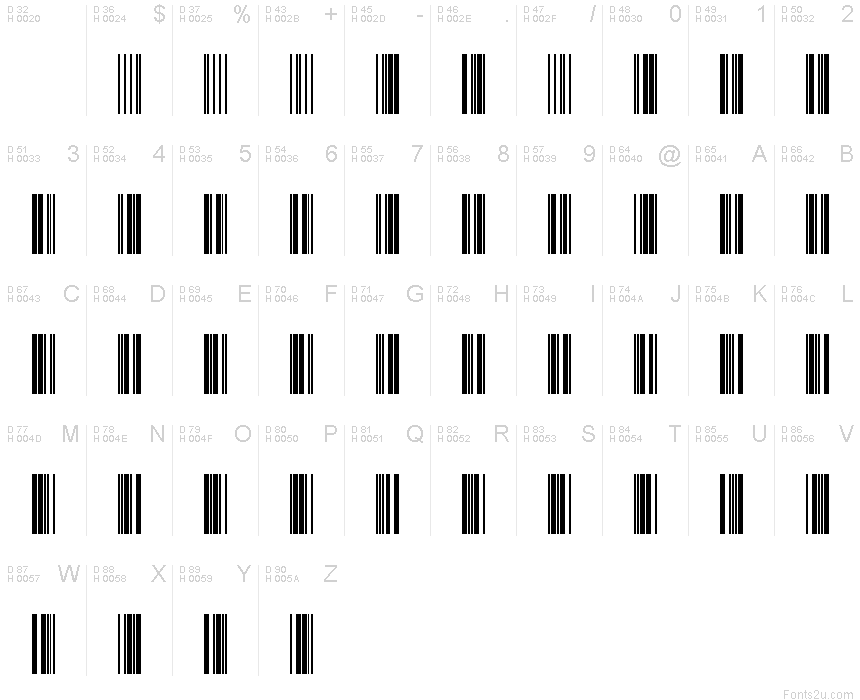
Code39 Regular
Code39 Regular font by Rob and Ron Elliott is a free barcode dingbat font from the Code39 family. Its tall vertical bars and strict narrow-to-wide rhythm give artwork that unmistakable scan-line texture—clean, mechanical, and instantly tied to packaging, labeling, and no-nonsense utility graphics.
Using Code39 Regular works beautifully for inventory tags, shipping labels, product mockups, warehouse signage, ticketing graphics, sci-fi control panels, and industrial-themed posters. Keep it at a generous size so the striped pattern stays crisp, and pair this free font with a plain sans like Helvetica or Inter for the supporting text.